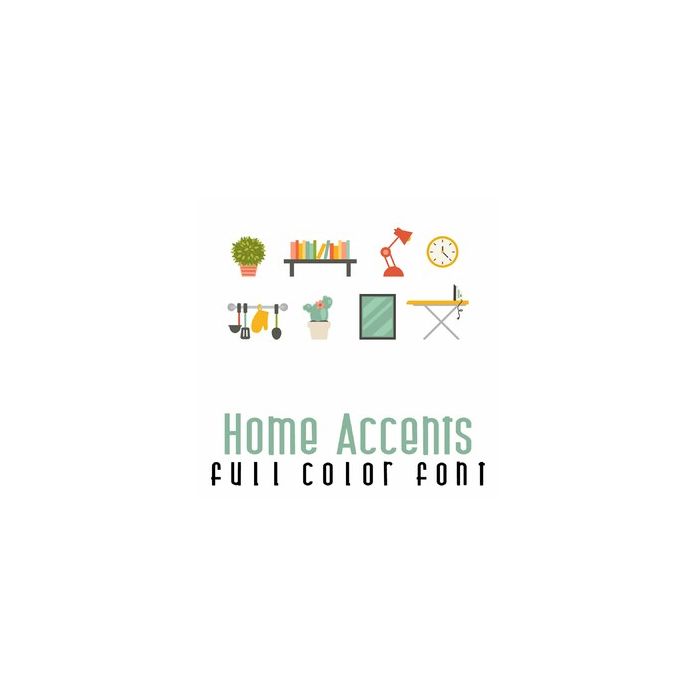
This adorable full-color doodlebat font features 30 home accent images. Perfect for cards, crafts, gifts, decor, scrapbook pages, planner stickers, and more! Glyphs A-Z and 0-3.